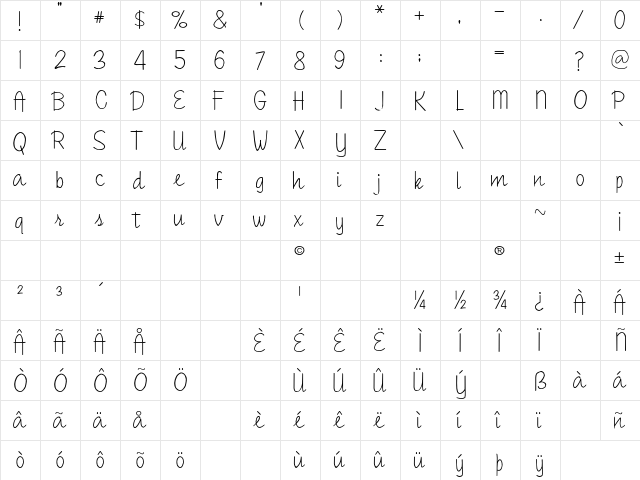
2Bees Champagne Regular
Design Context for 2Bees Champagne Typeface
2Bees Champagne takes a measured approach to typography — its balanced proportions and neutral character make it a reliable workhorse for both digital and print work.